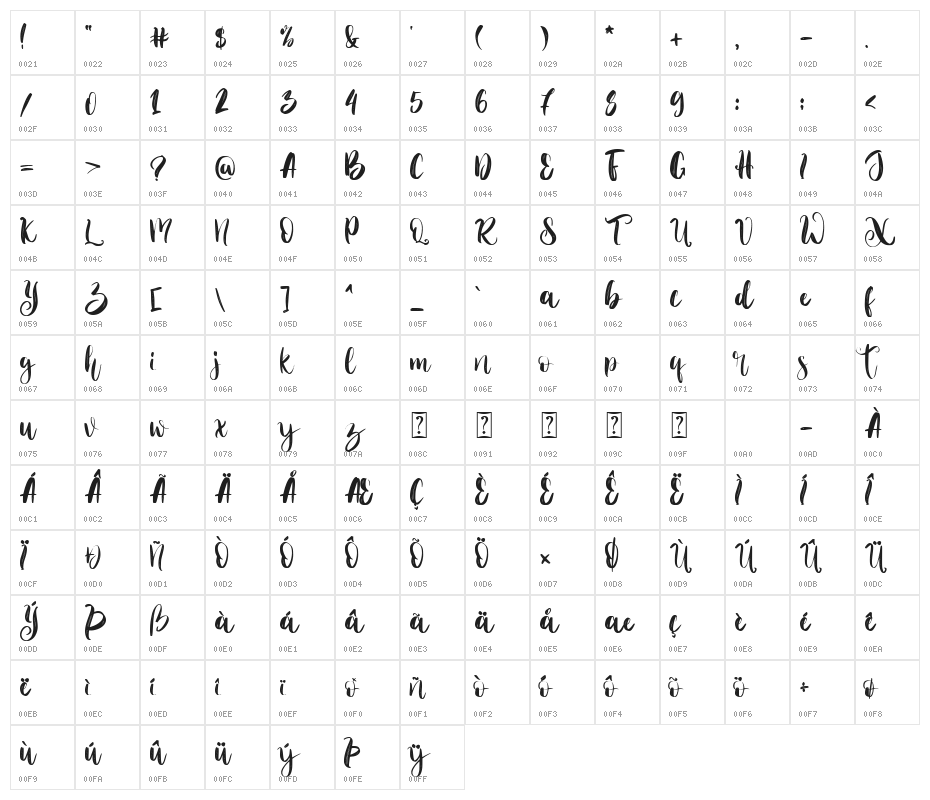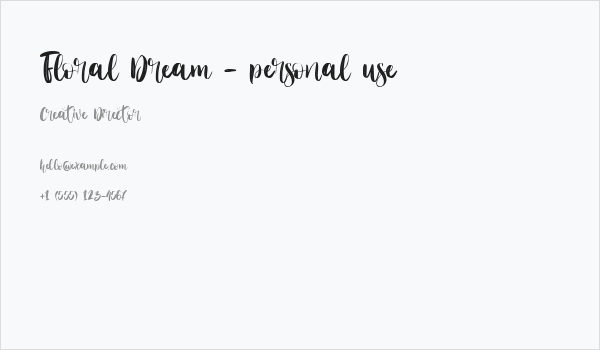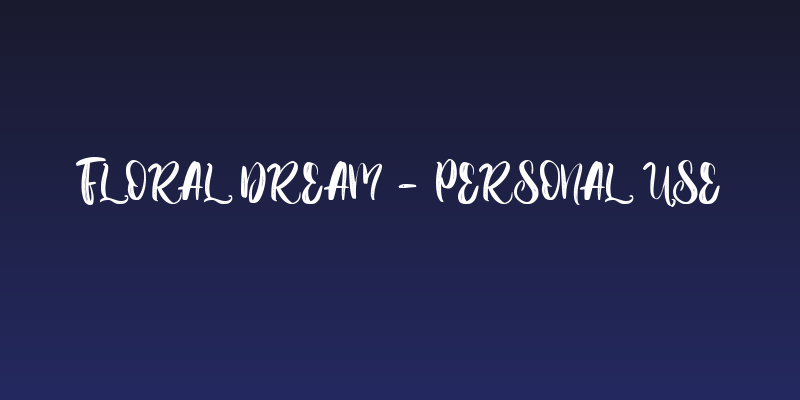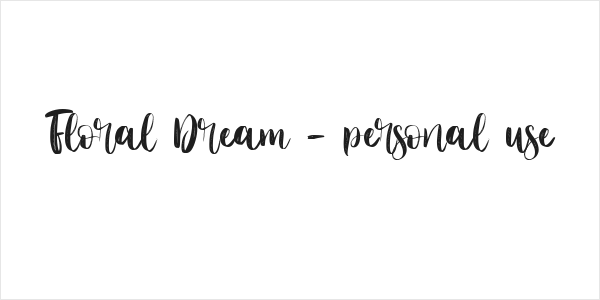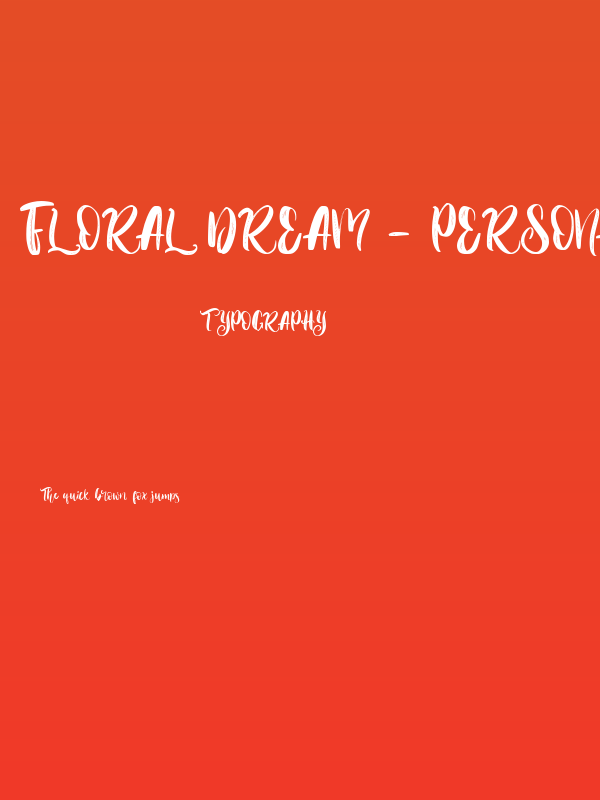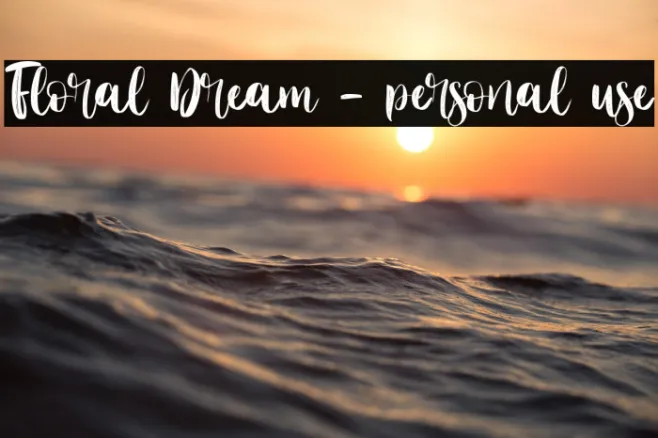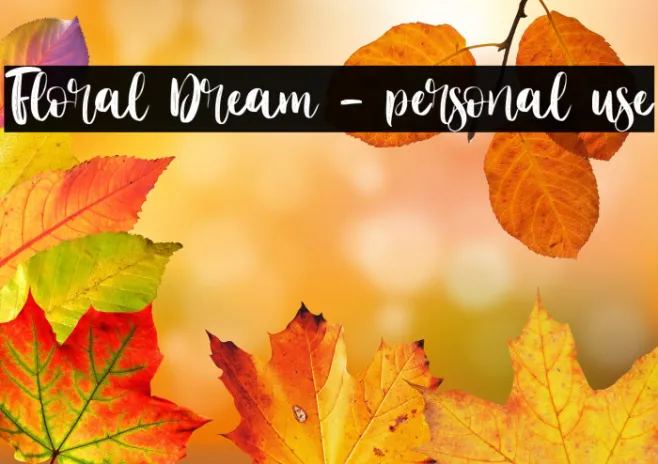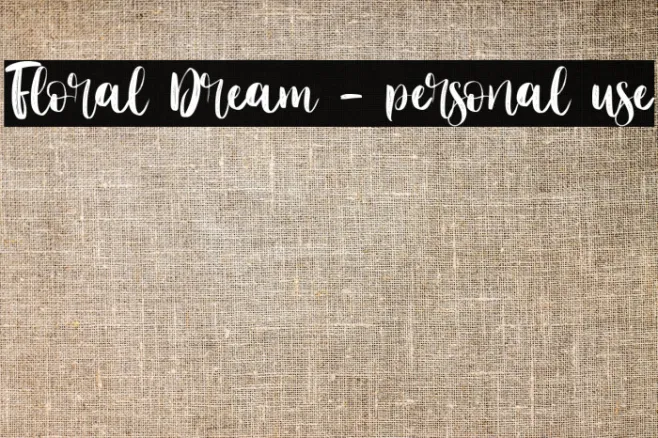
Floral Dream - personal use Font
Floral Dream - personal use Description
This font features a whimsical and artistic script style, characterized by its flowing, cursive letters with varying stroke widths. The uppercase letters are bold and expressive, while the lowercase letters maintain a playful elegance. The numbers and special characters are designed with the same artistic flair, making them suitable for creative projects. The overall design is reminiscent of hand-painted calligraphy, with a modern twist that adds a unique touch to any text. The strokes are smooth and fluid, with some letters featuring decorative swirls and loops that enhance the font's charm.